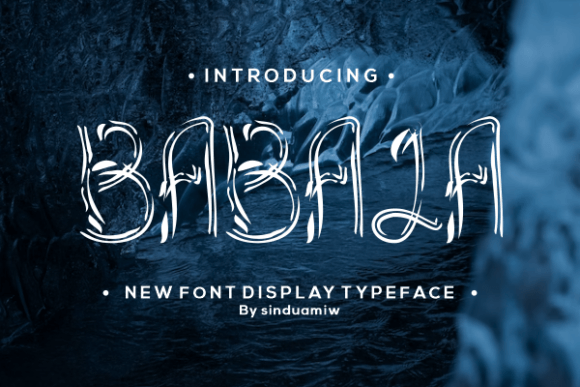
The Ultimate Guide to Babala Font: Elevate Your Designs with this Stunning Display Font
In this article, we’ll dive into the world of Babala font, exploring its features, how to use it, and what makes it so special. Whether you’re a designer, crafter, or creative hobbyist, you’ll learn how to take your projects to the next level with this amazing display font.
An Honest Review of Babala Font
What I Love About Babala Font ✨
• 💥 **Unique and quirky design**: Babala font has a one-of-a-kind personality that adds a touch of whimsy to any design.
• ✅ **Highly legible**: Despite its bold and playful nature, Babala font is surprisingly easy to read, making it perfect for posters, quotes, and other display text.
• 🎉 **Versatile**: Babala font can be used for a wide range of projects, from loud designs to more subtle applications.
• ⚠️ **Limited use for body text**: Due to its bold nature, Babala font is not suitable for long blocks of text. It’s best used for headings, titles, or short phrases.
• 🤔 **May not work well with serif fonts**: Babala font’s bold and playful style may clash with serif fonts. It’s best paired with sans-serif fonts or used solo.
Babala font comes with a range of OpenType features, glyphs, and stylistic alternates that allow you to customize your text. Here are a few examples:
• 💡 **Stylistic alternates**: Babala font offers stylistic alternates that allow you to switch between different font styles, such as bold, italic, and oblique.
• 🔍 **Glyphs**: The font includes a range of glyphs, including ligatures, ornaments, and swashes.
• 🎨 **OpenType features**: Babala font supports OpenType features, such as kerning, ligatures, and stylistic sets.
The Backstory of Babala Font
The story of Babala font begins with a young designer named Emma, who was inspired by the vibrant street art of her hometown. She wanted to create a font that captured the energy and playfulness of street art, while also being legible and versatile. After months of experimentation, Emma finally created Babala font, which quickly gained popularity among designers and creatives.
Font Name Babala Font
Author sinduamiw